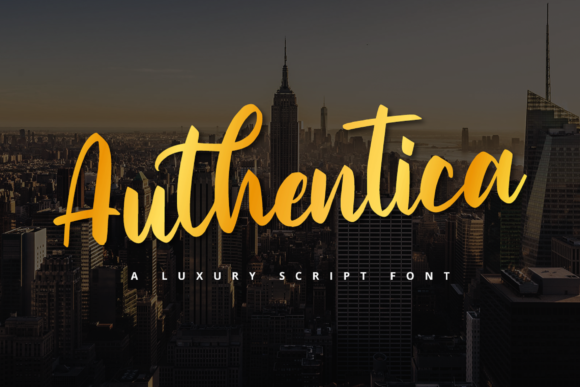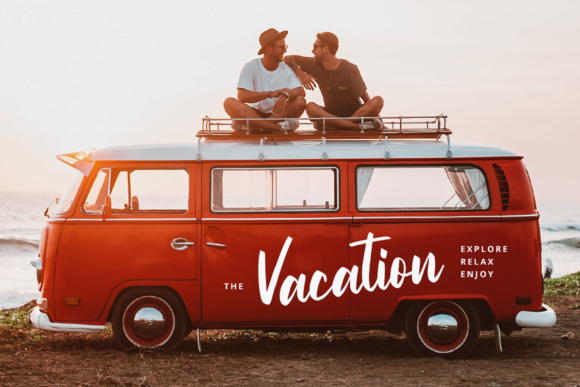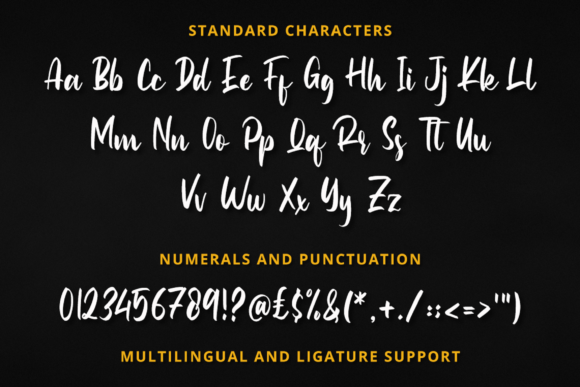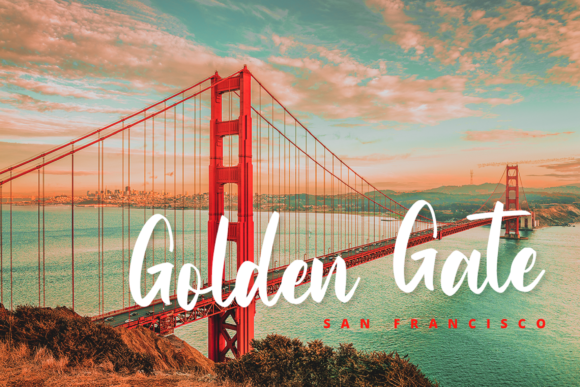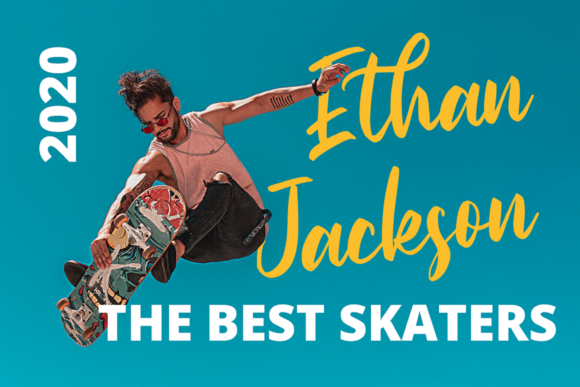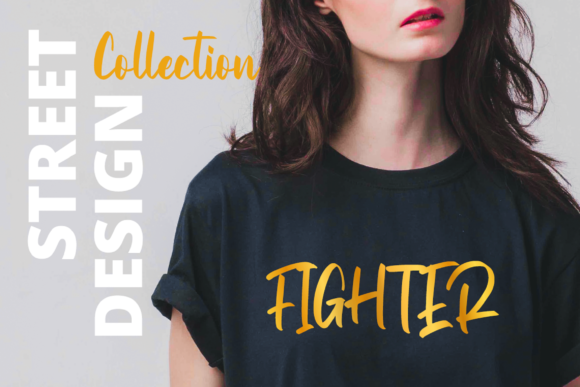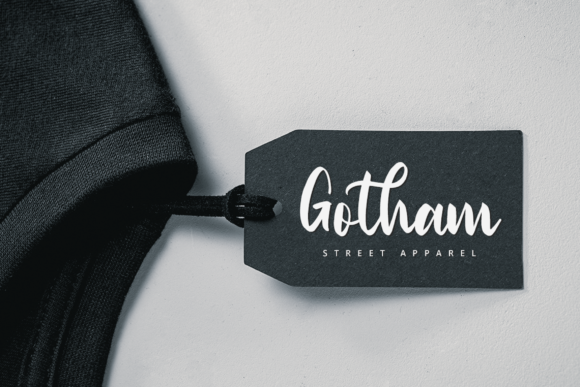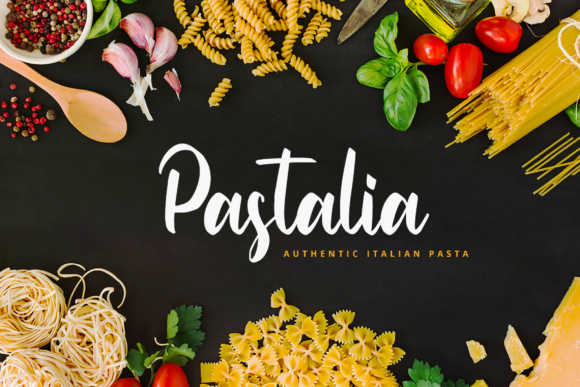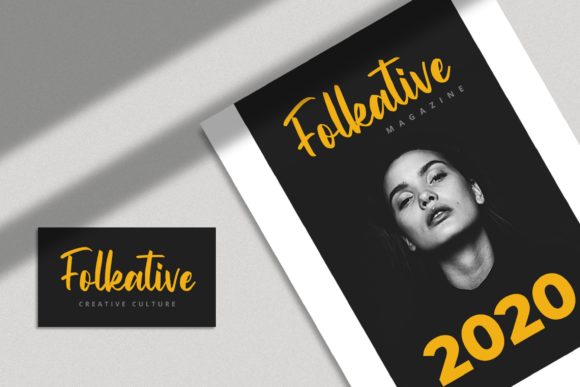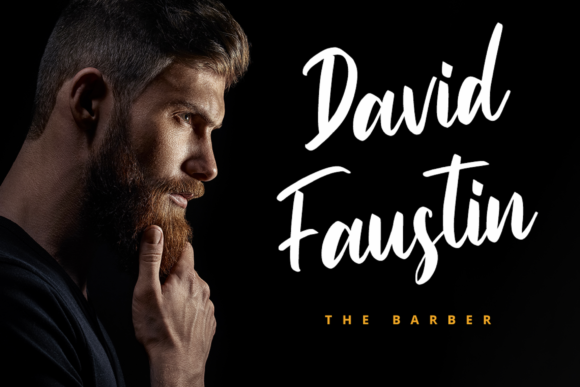
Authentica Font
About Authentica Font
Authentica is a spectacular handwritten font that adds a touch of elegance and authenticity to any design. With its unique and carefully crafted letterforms, this font stands out and makes a statement.
One of the standout features of Authentica is its versatility. It looks outstanding in any context, whether it’s used on busy backgrounds or as a standalone headline. The carefully designed letterforms ensure that the font remains legible and eye-catching, even in more complex design compositions.
Whether you’re designing a logo, creating a poster, or crafting a social media graphic, Authentica will elevate your design with its refined and sophisticated appearance. It brings a sense of elegance and professionalism to your work, making it suitable for a wide range of applications.
The attention to detail in Authentica is evident in its flowing and natural strokes. Each letter is meticulously designed to create a harmonious and balanced overall look. This attention to detail contributes to the font’s outstanding appearance, making it a go-to choice for designers looking for a handwritten font with a touch of sophistication.
Authentica can be used in various design contexts, including branding, packaging, editorial design, and more. Its versatility allows it to adapt to different design styles and themes, making it a reliable choice for a wide range of projects.
In summary, Authentica is a spectacular handwritten font that shines in any design context. Its elegance, authenticity, and versatility make it a standout choice for designers who want to add a touch of sophistication to their work. Whether it’s used on busy backgrounds or as a standalone headline, Authentica will make your designs look outstanding and captivating.